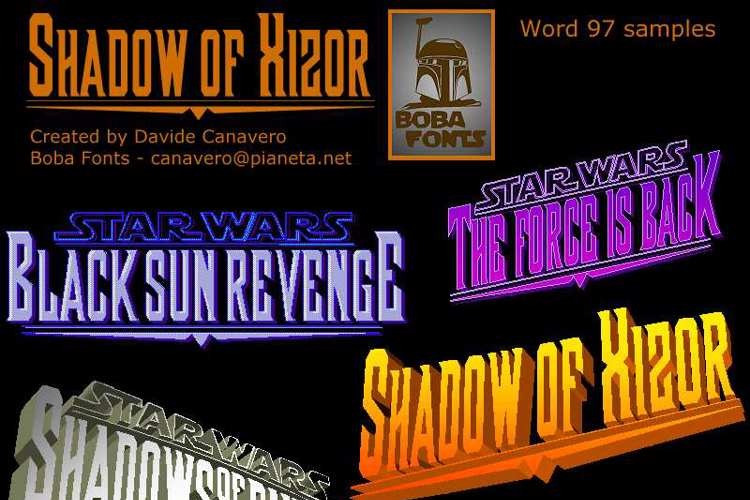
Shadow of Xizor Font
based on the lettering for the logo of Star Wars “Shadows of the Empire” video game, novel, and comic
Shadow of Xizor is a narrow serif font that reproduces the original Shadows of the Empire logo’s typeface. The charset includes the underline logo ornament, the top Star Wars logo ornament and a “of the” mini letter group. Besides, you’ll find some dingbats reproducing the whole Star Wars logo letter group, the Imperial and the Rebellion logos, etc.